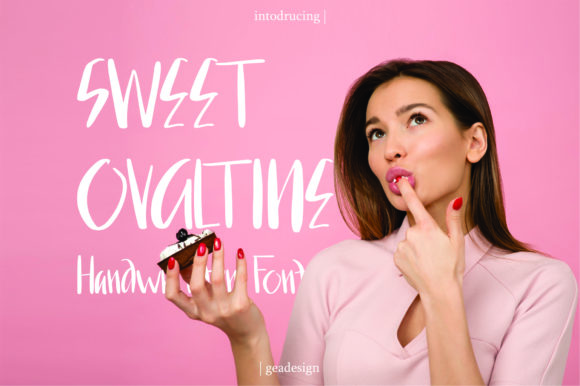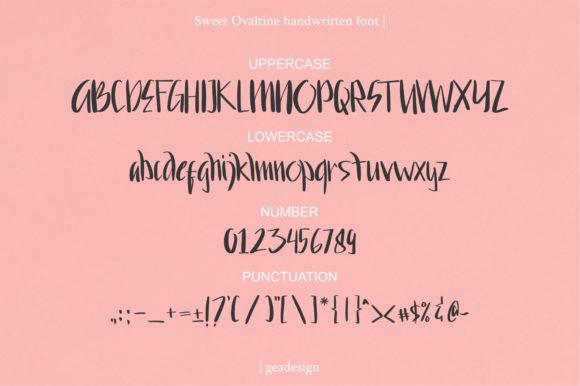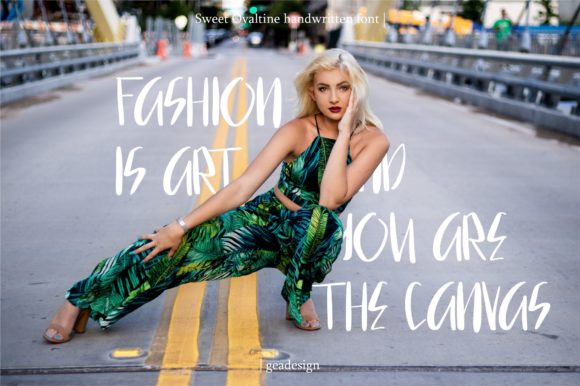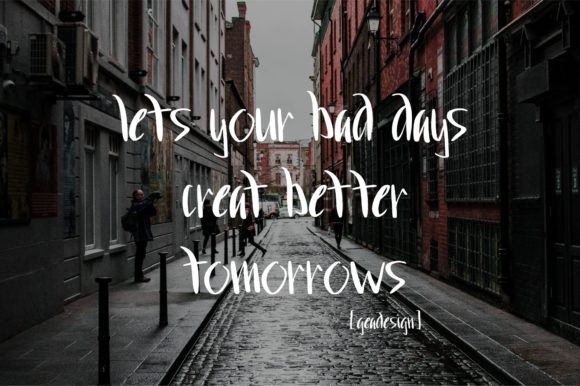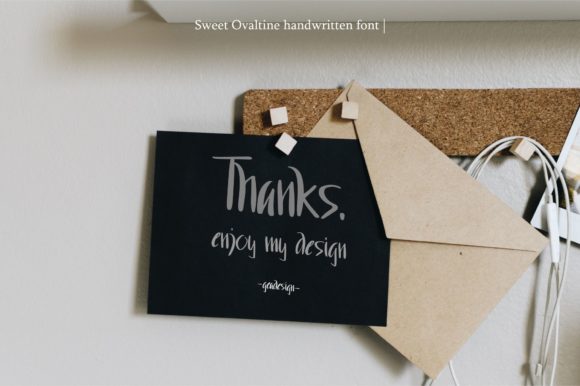
Sweet Ovaltine Font
The Sweet Ovaltine is an amazing handwritten brush font. It gives a simple design a classy and elegant look.
Perfect for your magazines or web photos and much more!